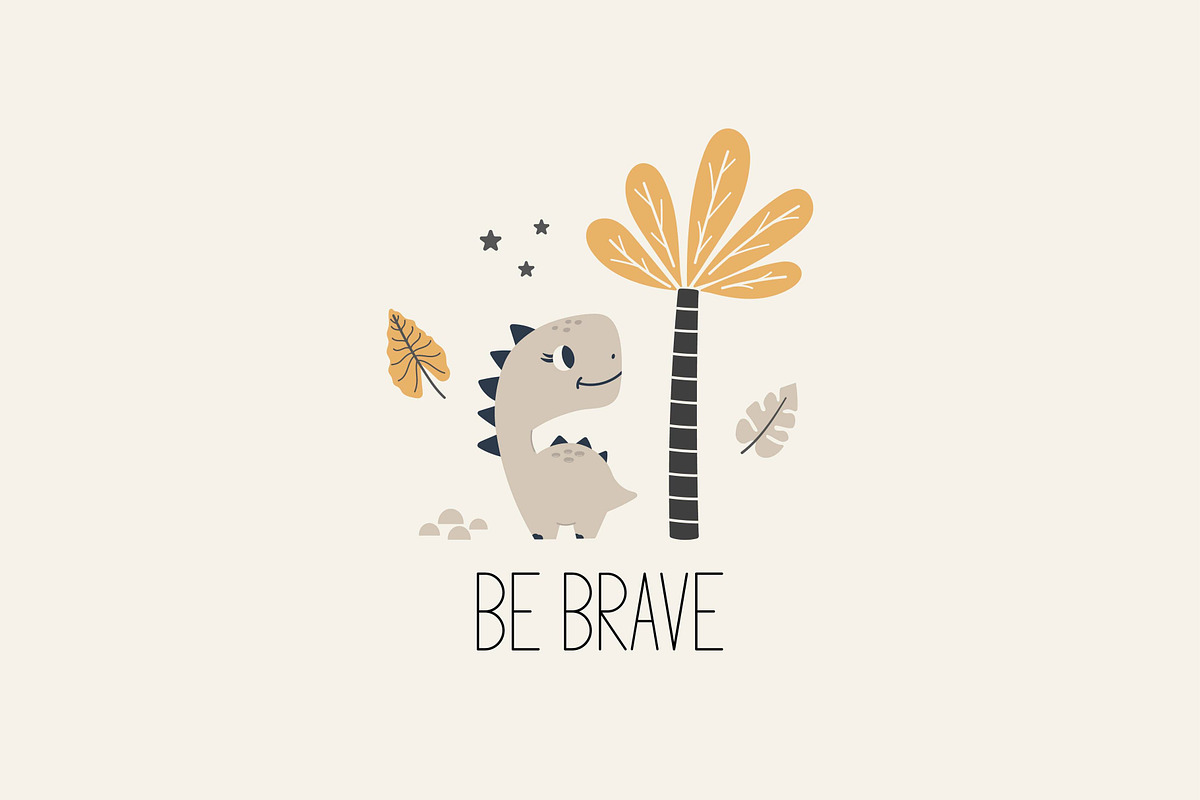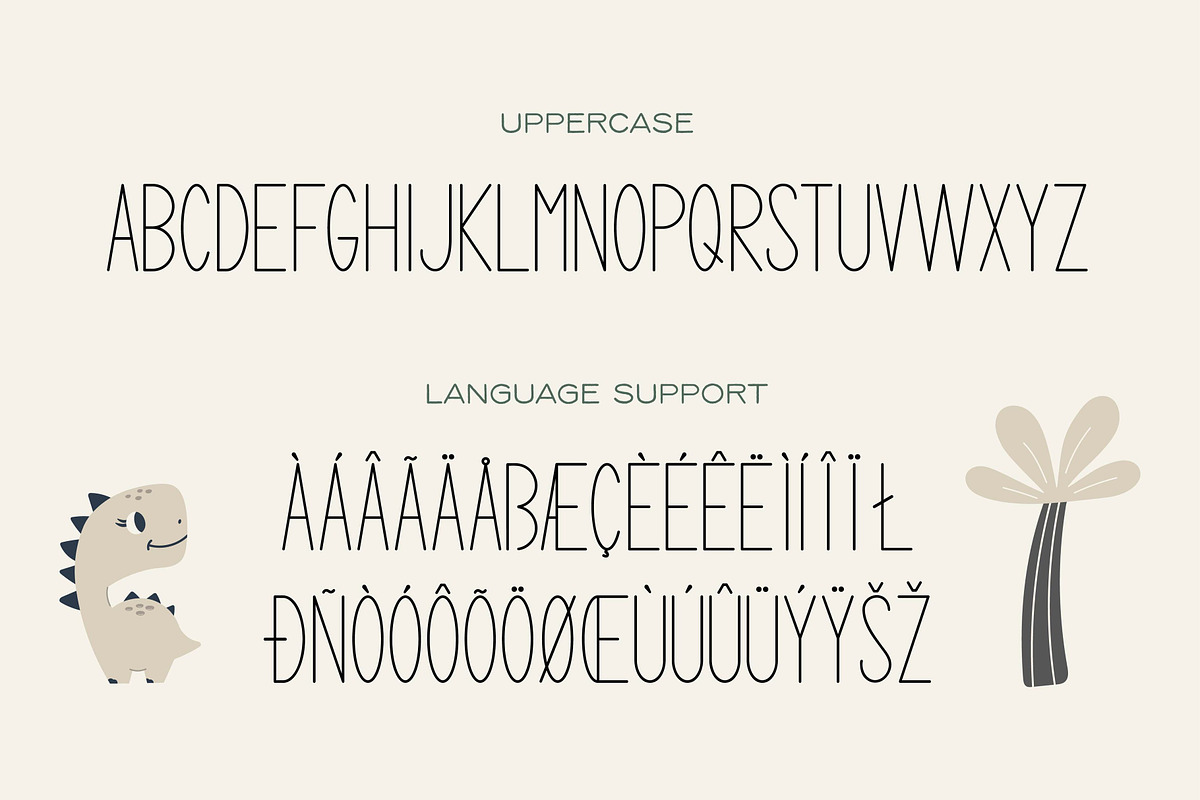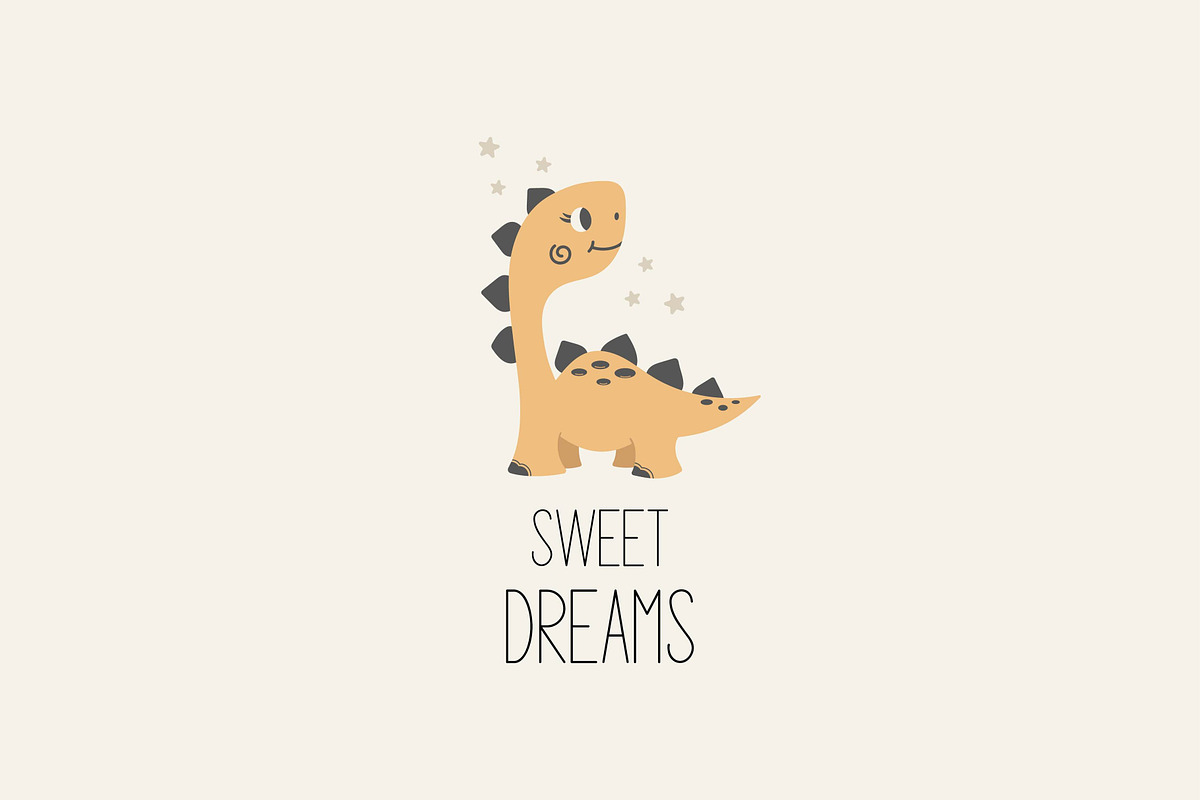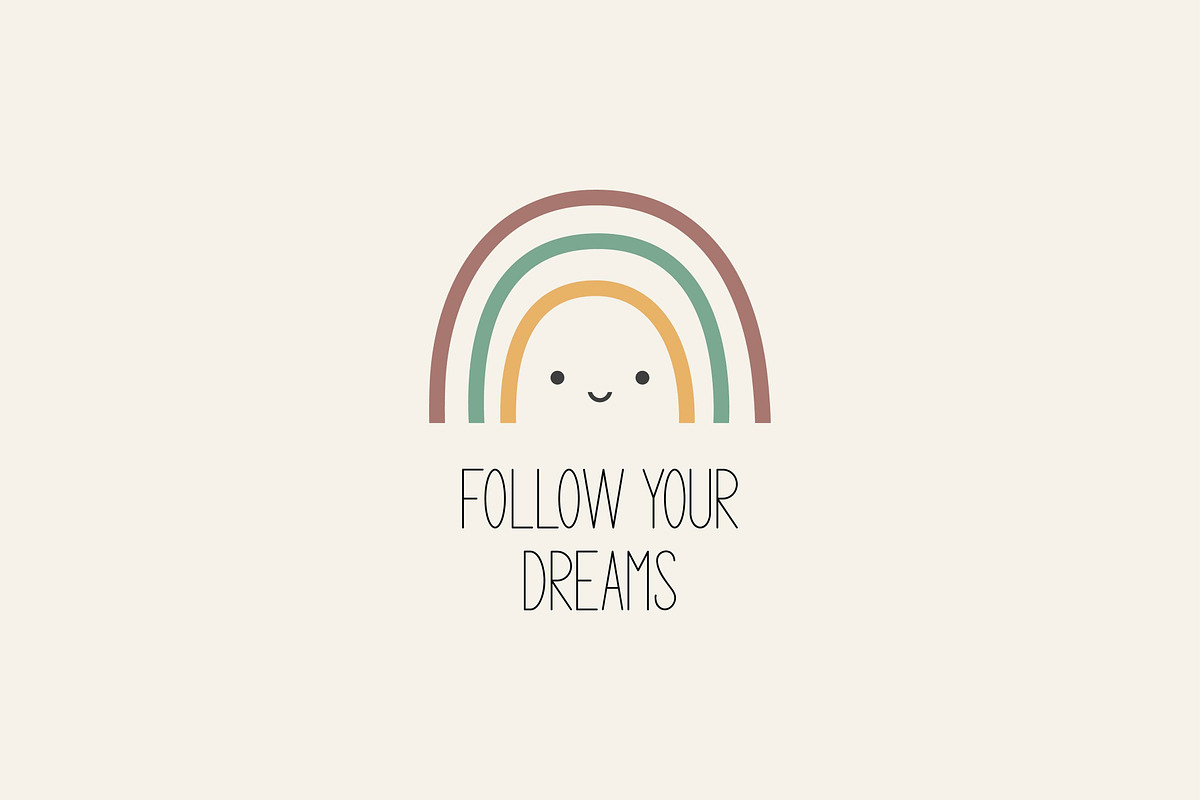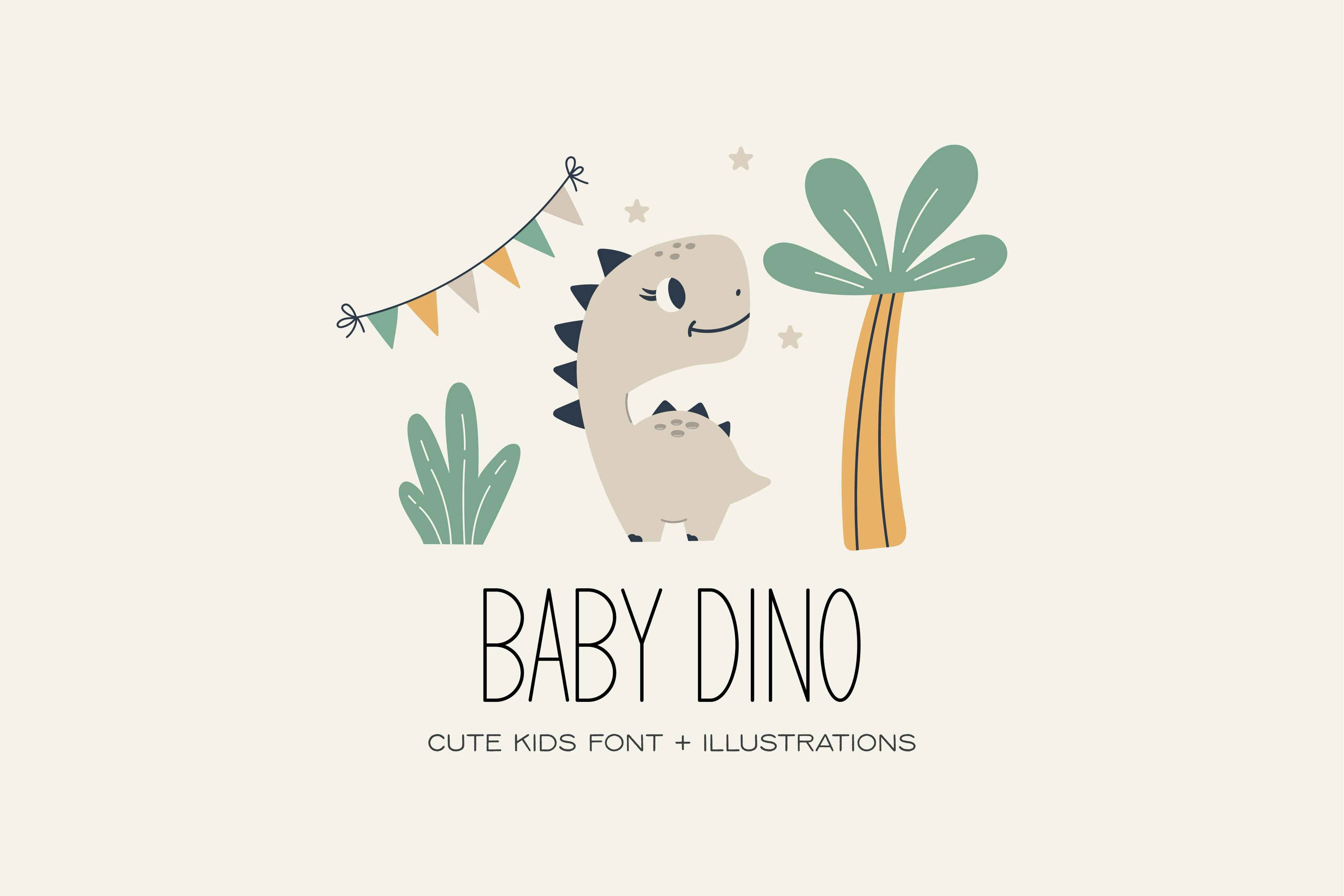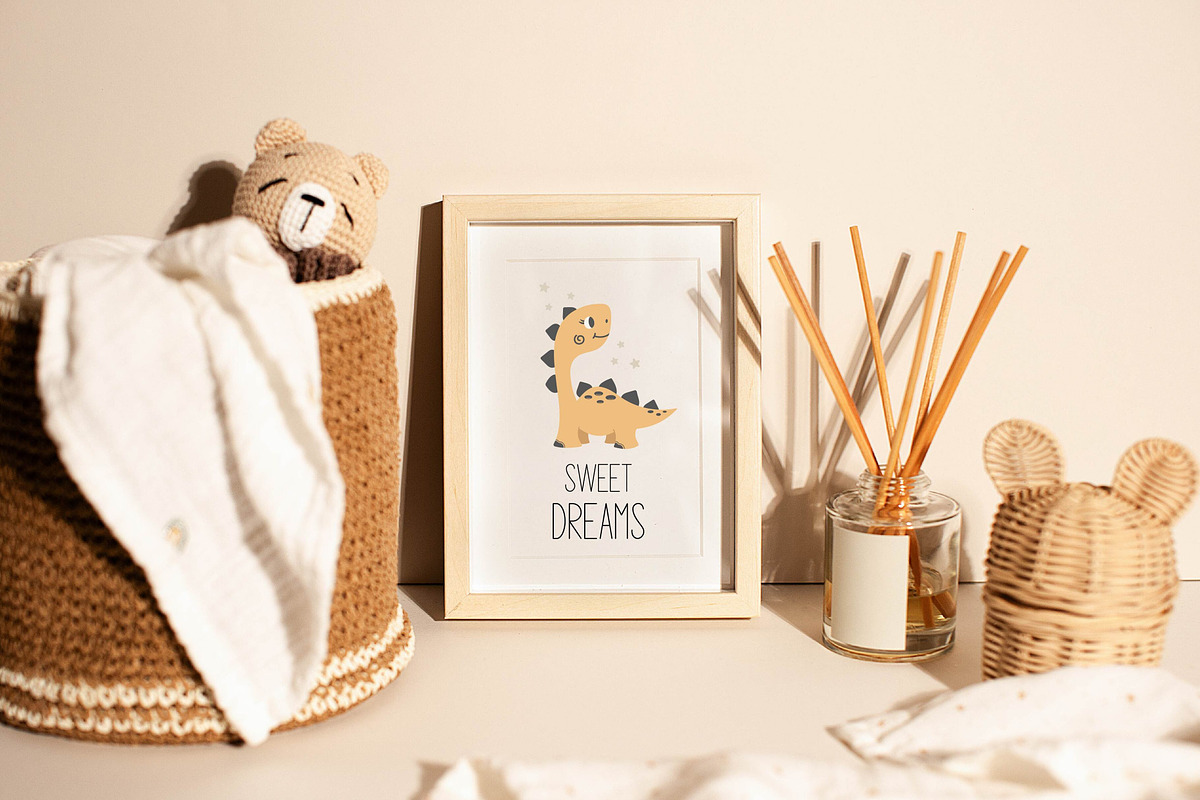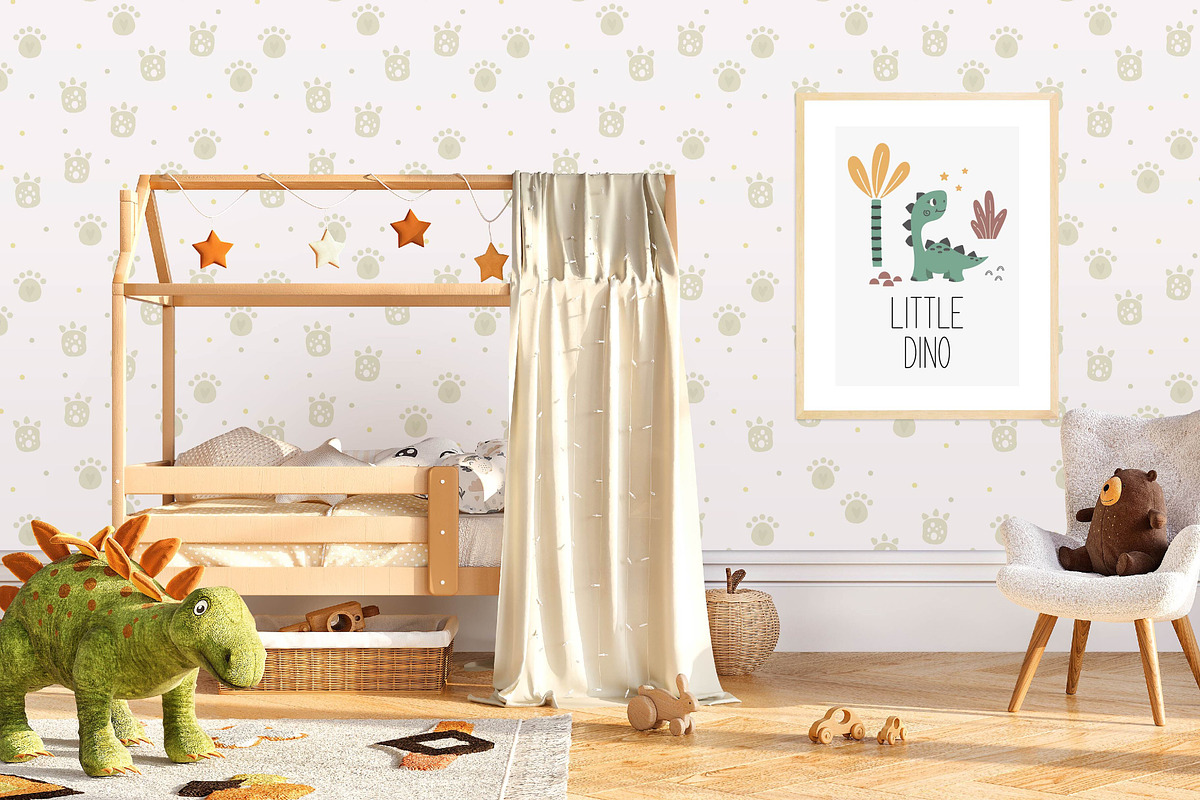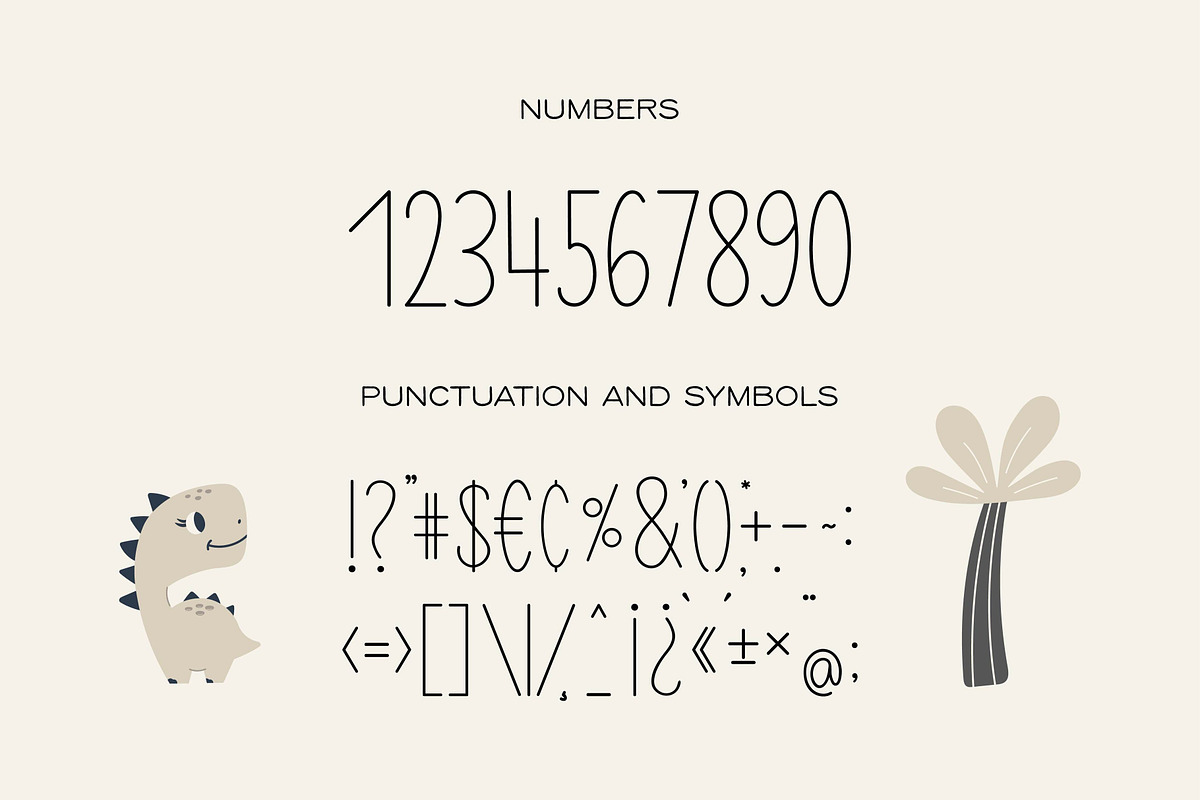
Baby Dino - Kids Font
Baby Dino Kids Font
Baby Dino is fun uppercase font includes 24 cute graphic elements, 6 seamless patterns and 9 post cards.
Perfect for logos, quotes, cards, product packaging, social media, posters and other designs.